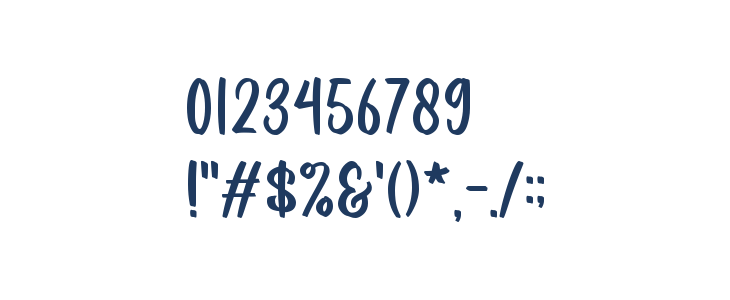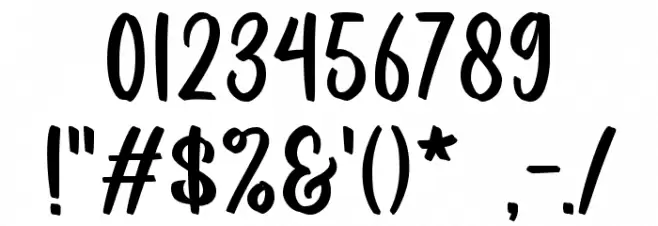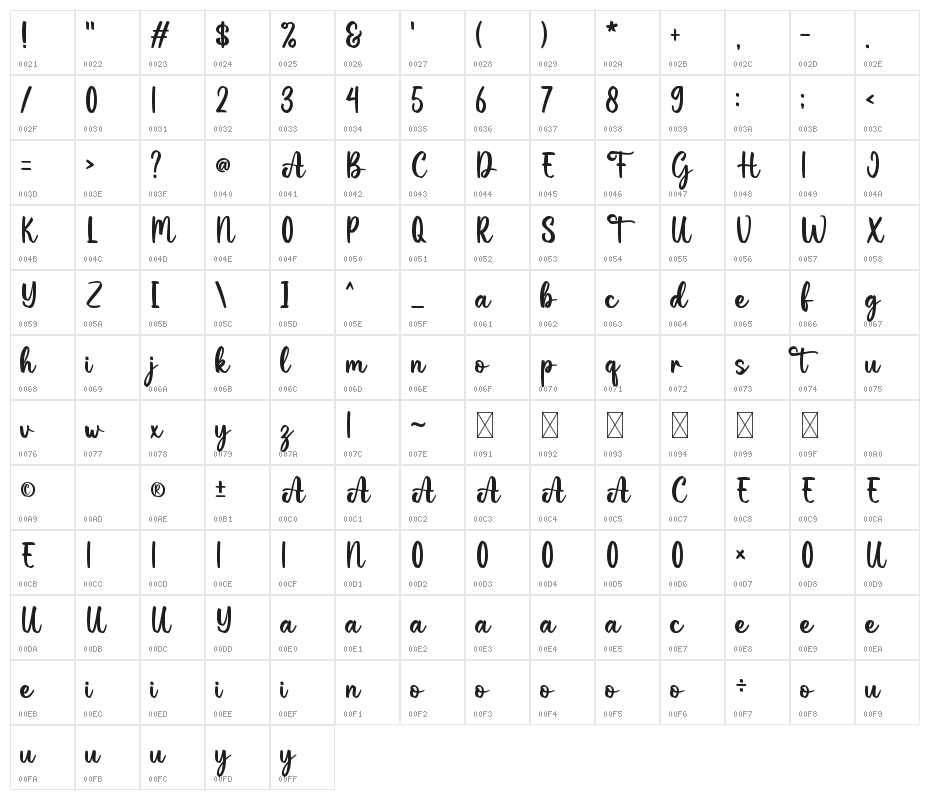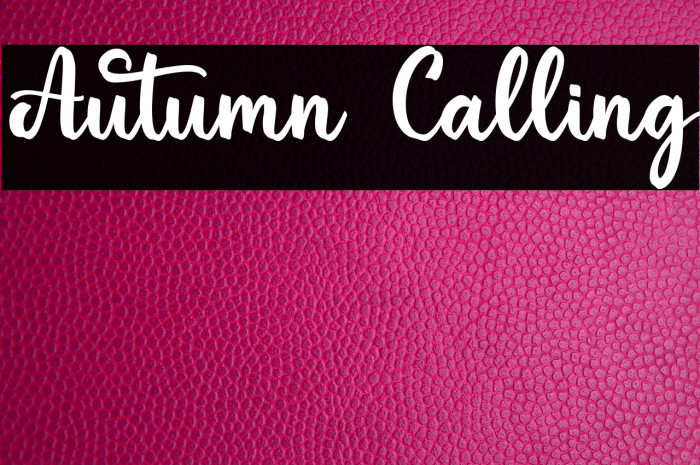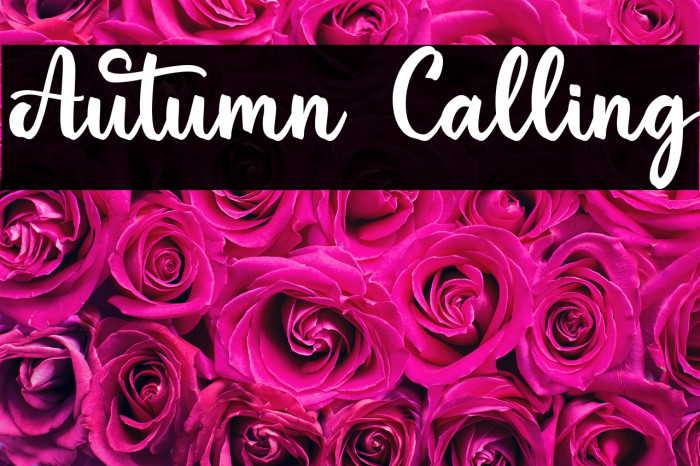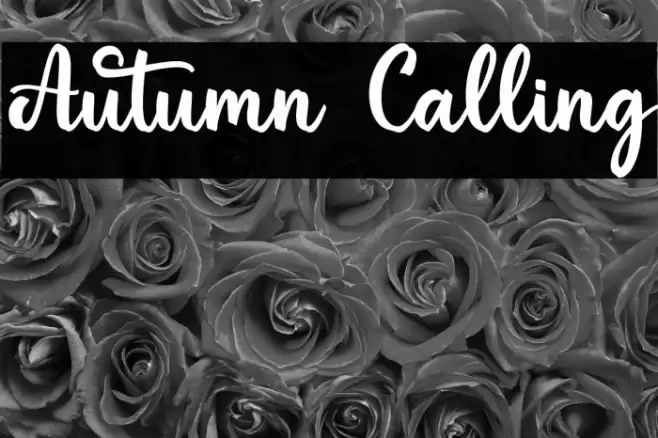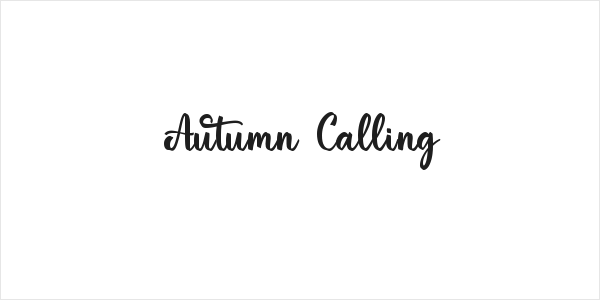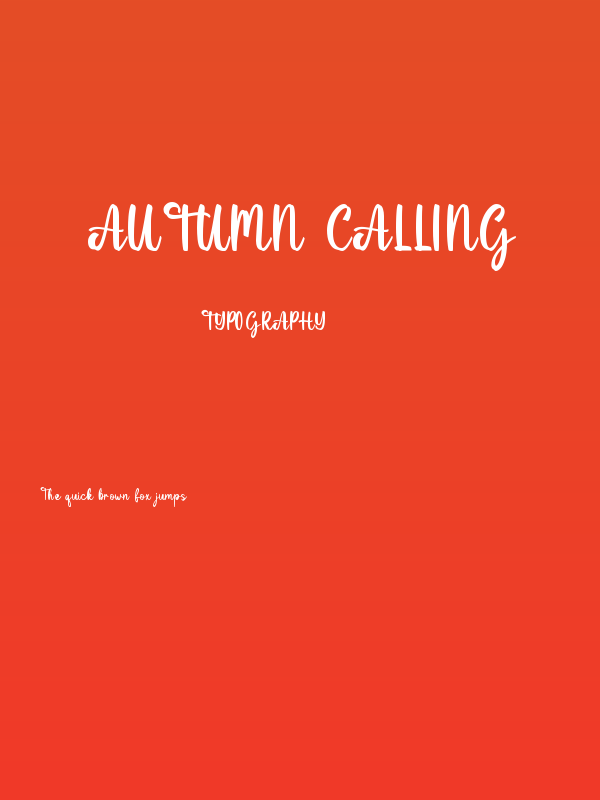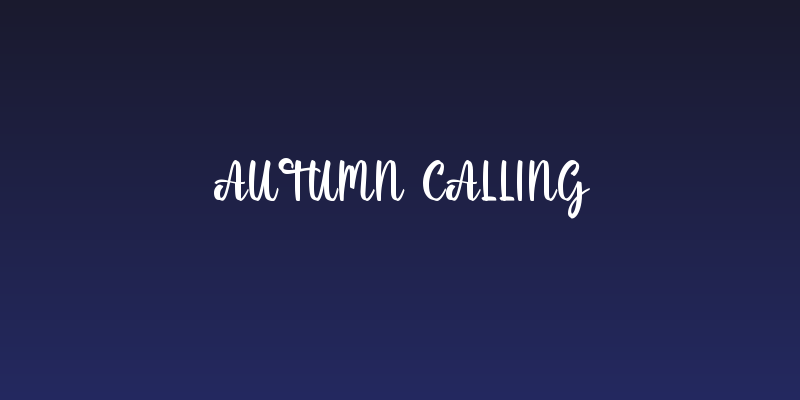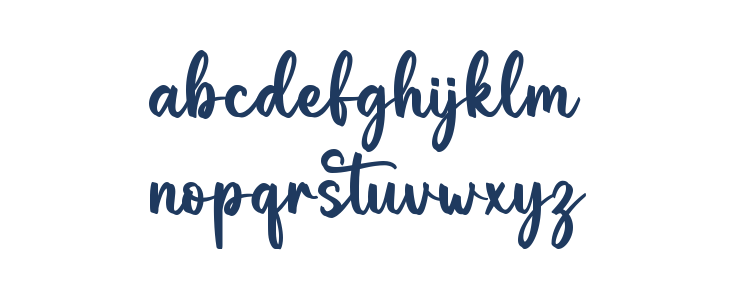
Autumn Calling Font
Autumn Calling Description
This font features a playful and flowing script style, characterized by its smooth, connected strokes and a handwritten appearance. The uppercase letters are bold and slightly exaggerated, giving a sense of movement and energy. The lowercase letters maintain a consistent flow, with some letters featuring loops and curls that add to the overall whimsical feel. The numerals are clear and easy to read, matching the playful style of the alphabet. Special characters are integrated seamlessly, maintaining the font's cohesive look. This font is ideal for projects that require a personal touch or a sense of creativity and warmth.
| Proposed Projects | Greeting cards, invitations, branding, social media graphics, and creative projects. |